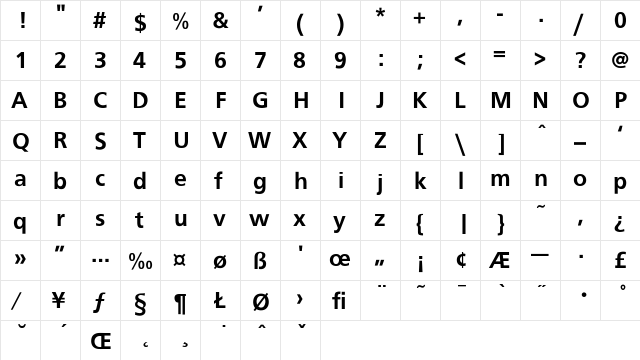
Briar Banks-Heavy Regular
Design Context for Briar Banks-Heavy Typeface
Briar Banks-Heavy takes a measured approach to typography — its balanced proportions and neutral character make it a reliable workhorse for both digital and print work.